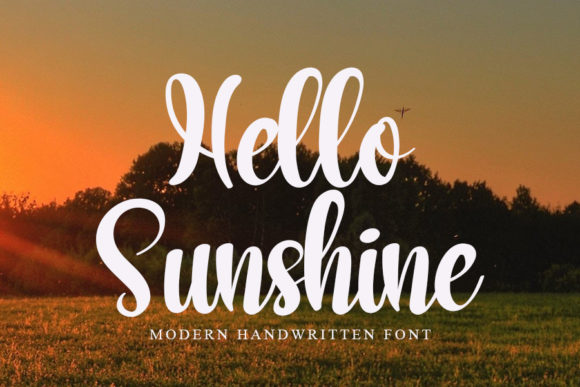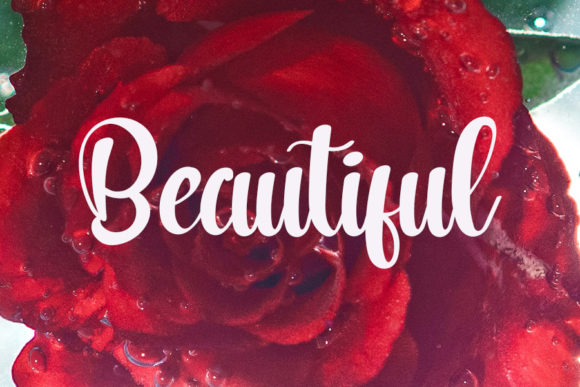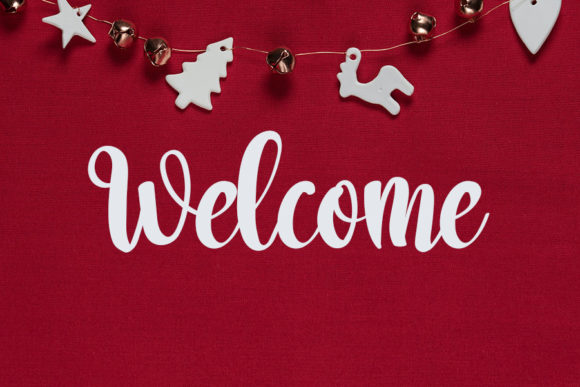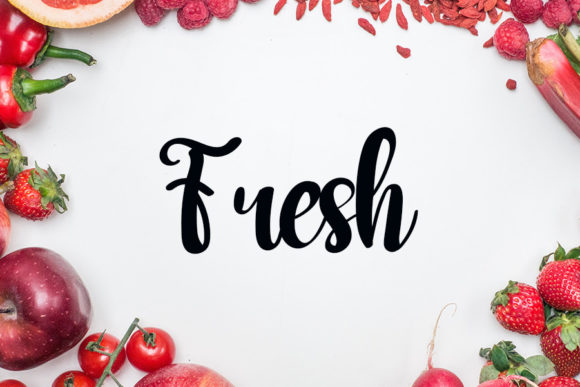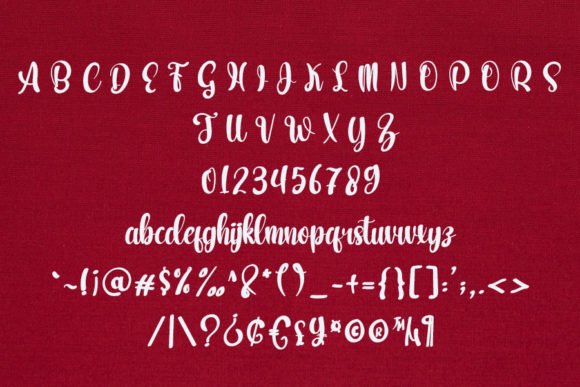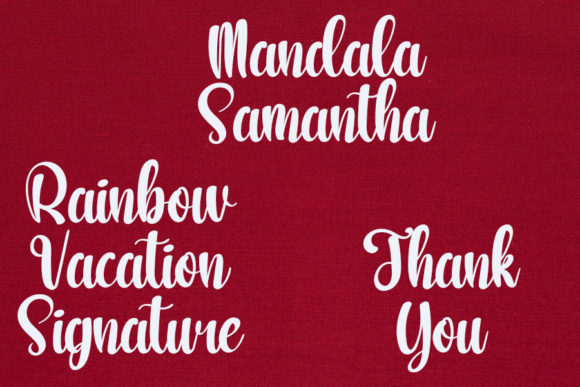
Hello Sunshine Font
About Hello Sunshine Font
Hello Sunshine is a friendly handwritten font, carefully designed to become a true favorite. It maintains its classy calligraphic influences while feeling contemporary and fresh.